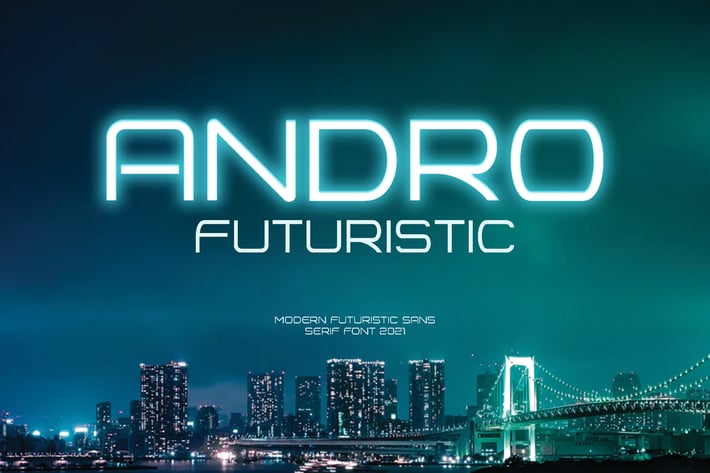
Andro Futuristic Scifi Font
Andro Future is futuristic sans serif font . Every curve is made carefully. It can easily be matched to an incredibly large set of projects for your company/ corporate, so add it to your creative ideas and notice how it makes them stand out!